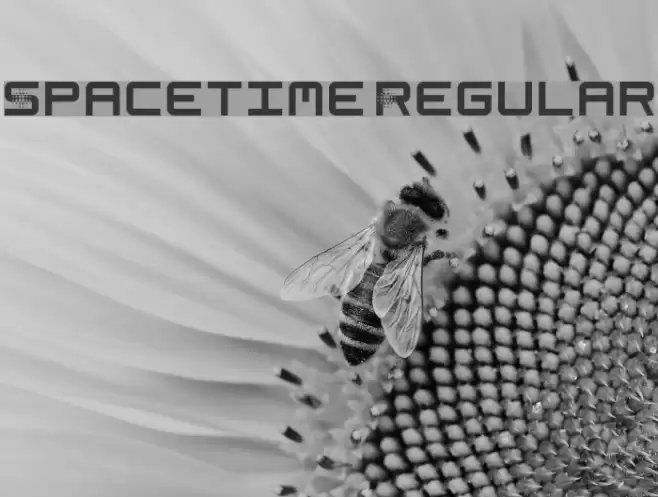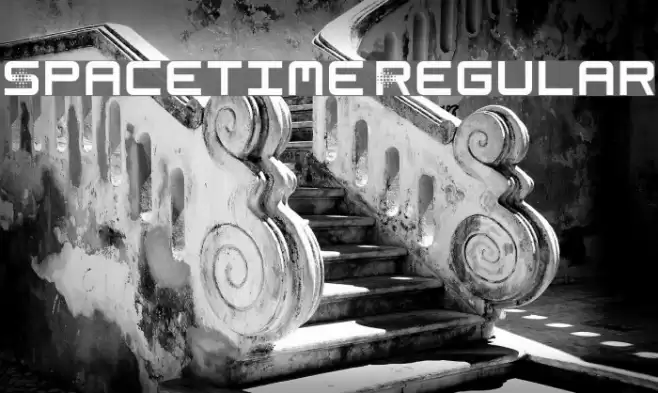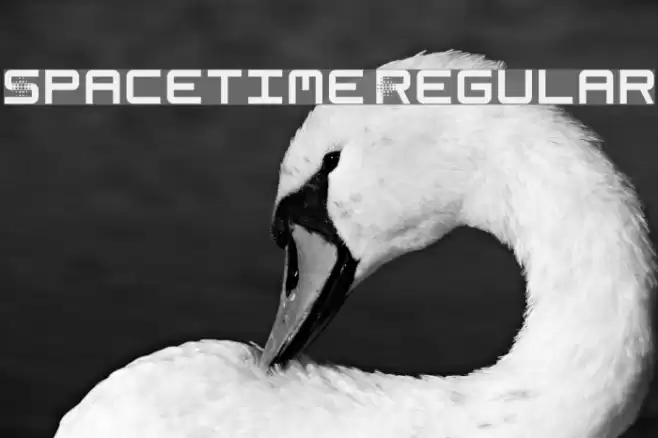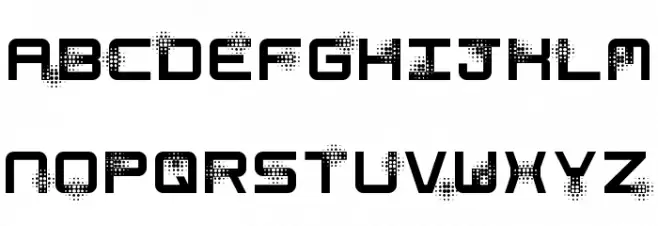
Spacetime Regular Font
Spacetime Regular Description
This font features a futuristic and geometric design, characterized by its clean lines and modern aesthetic. The uppercase letters are bold and structured, with a unique pixelated effect on certain characters, adding a digital and tech-inspired touch. The lowercase letters maintain a consistent style, complementing the uppercase with a similar geometric form. The numerals are clear and easy to read, following the same design principles. Special characters are included, ensuring versatility in usage. Overall, this font combines modernity with a hint of retro digital flair, making it suitable for various creative applications.
A futuristic, geometric font with a pixelated effect on select characters from Uncategorized fonts.
- Proposed Projects: Ideal for tech-related branding, digital art projects, sci-fi themed designs, and modern advertising campaigns.
- Use Case: Headlines, Logos, Digital Art